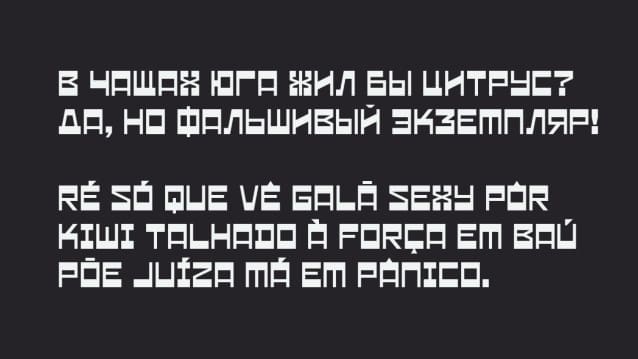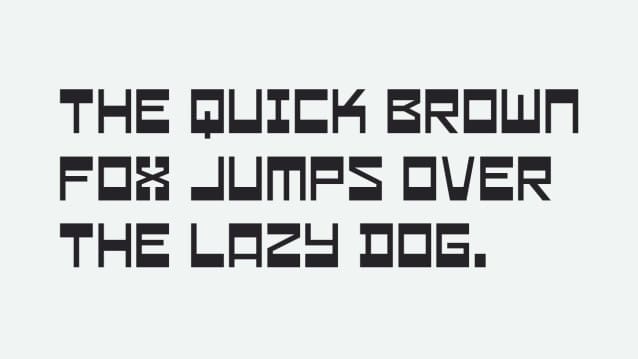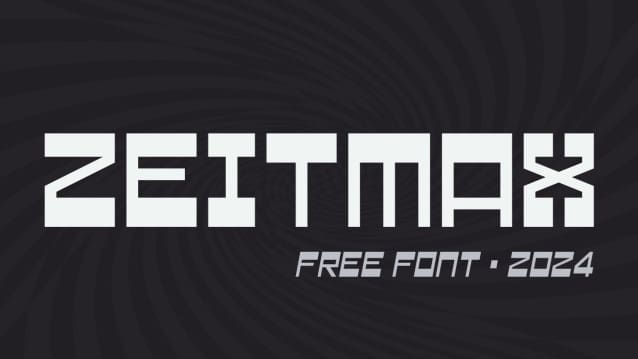
Zeitmax Font
Zeitmax Font a strong, confident and powerful typeface designed to suit sports logos, club branding, apparel applications, labels and more.